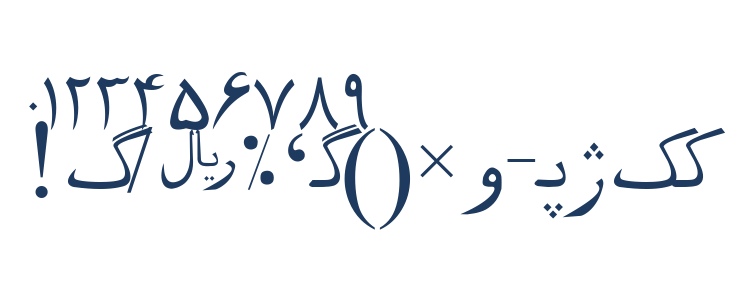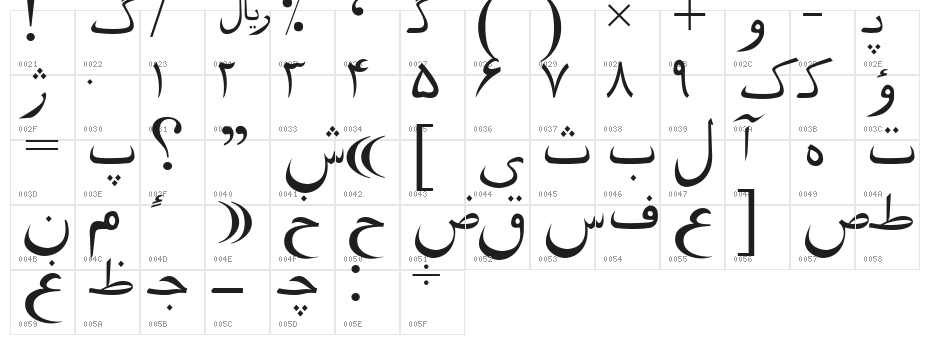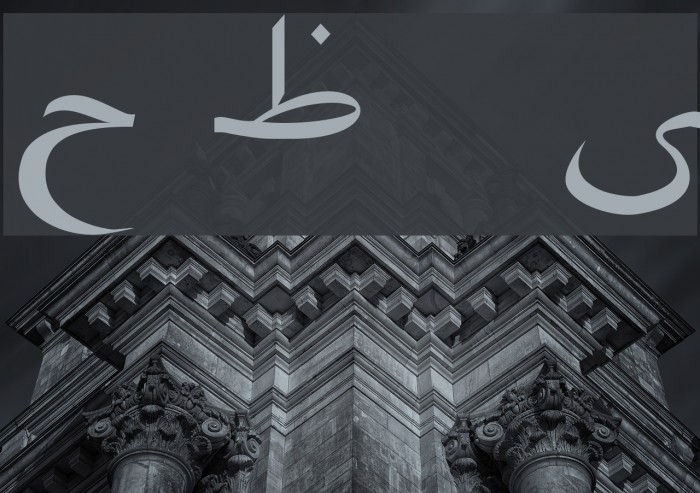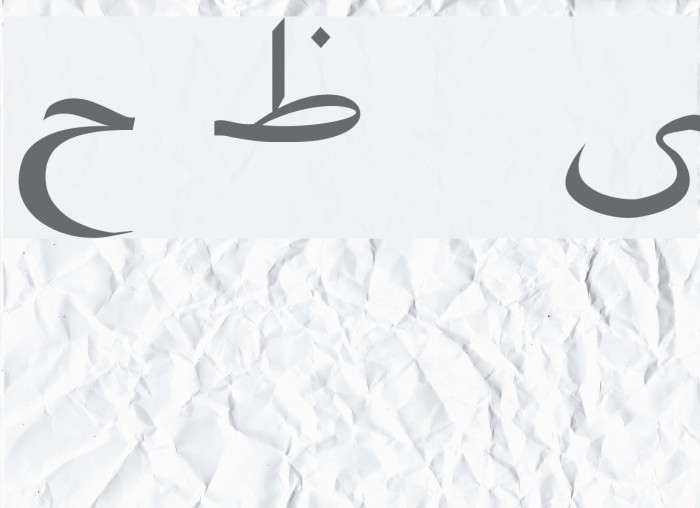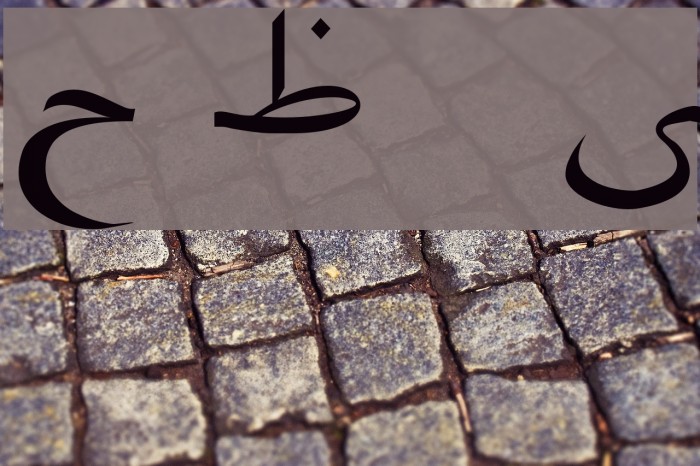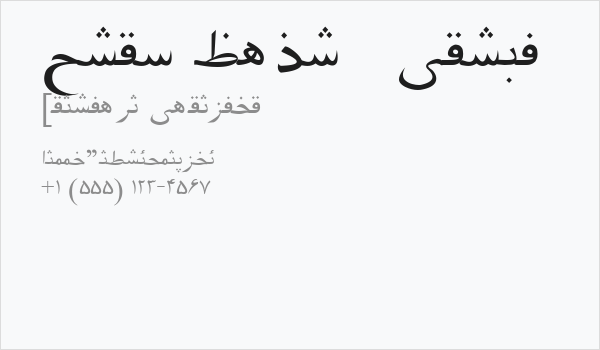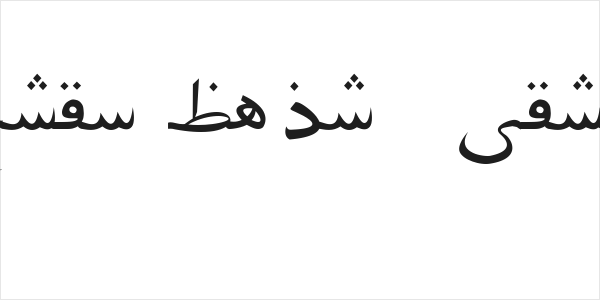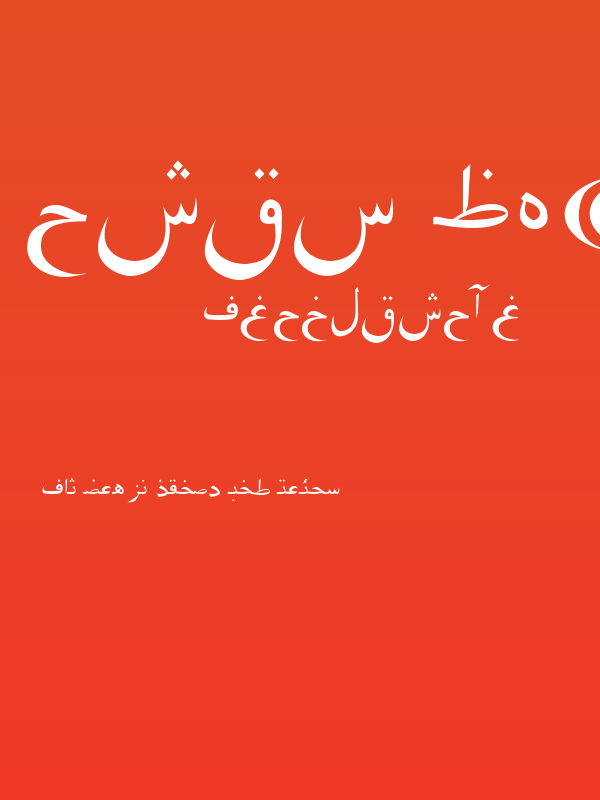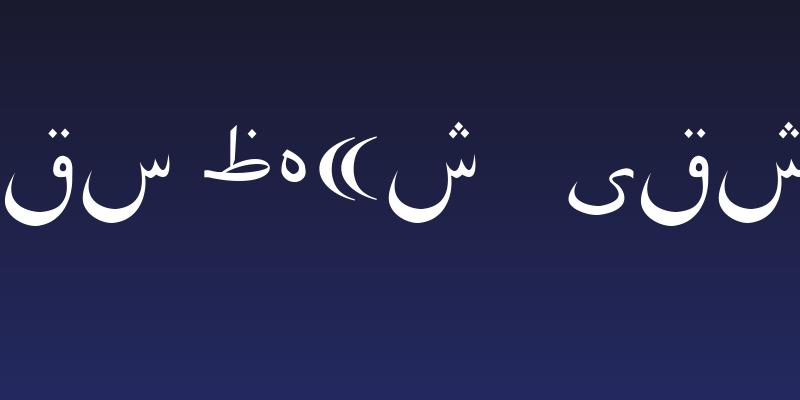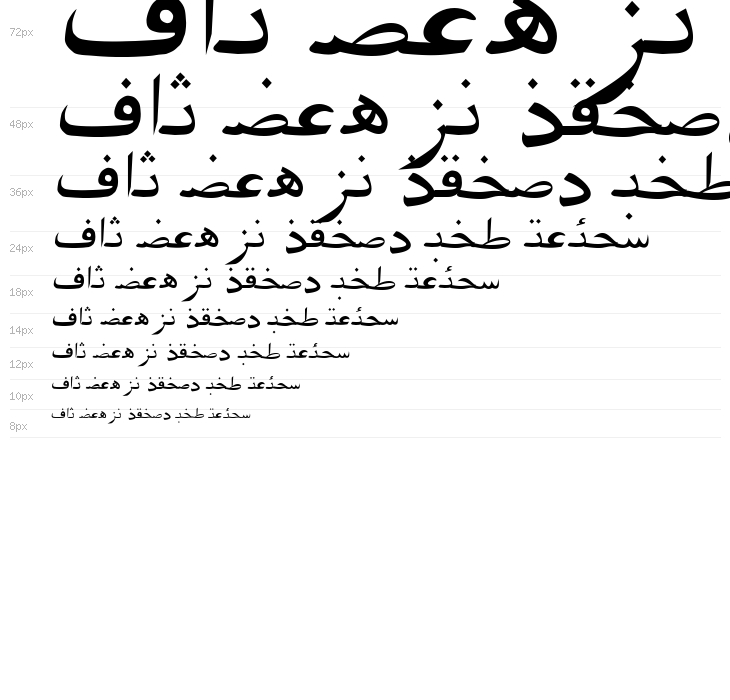
Pars Ziba Draft Font
Pars Ziba Draft Description
This font exhibits a bold and dynamic style with a strong presence, characterized by its thick strokes and sharp angles. The letters are designed with a sense of movement and flair, making it visually striking. The font features high contrast between thick and thin lines, enhancing its dramatic appearance. The characters are well-spaced, ensuring readability while maintaining an artistic touch. The overall design is modern yet retains a classic elegance, suitable for various creative applications.